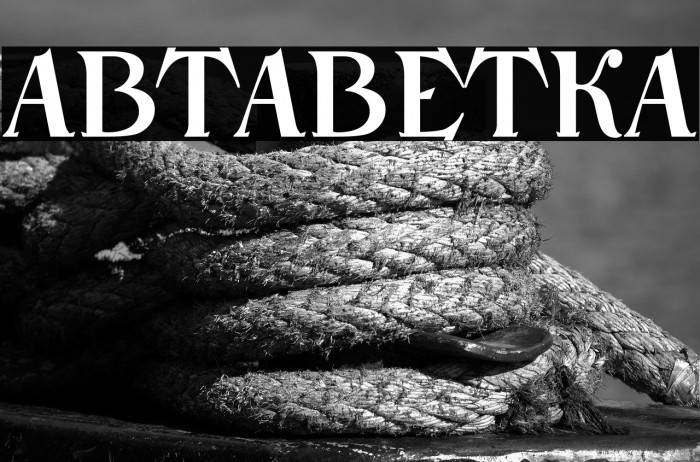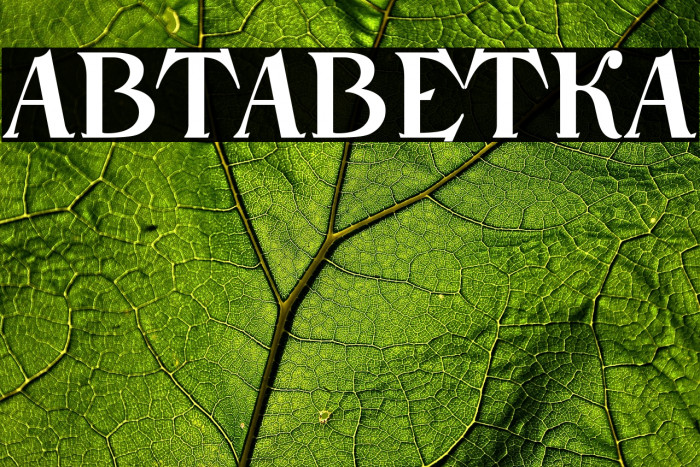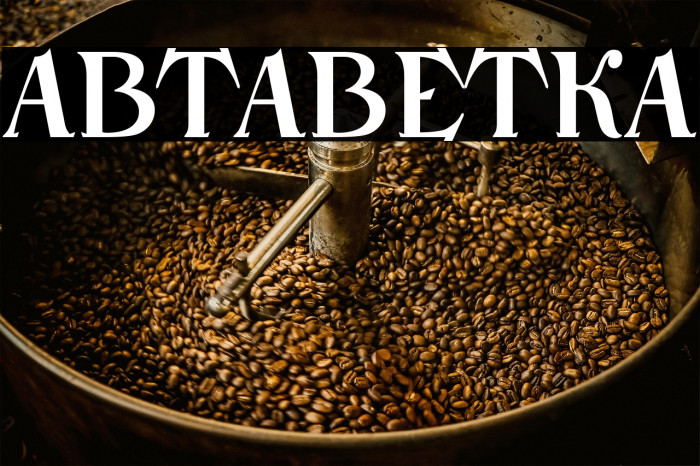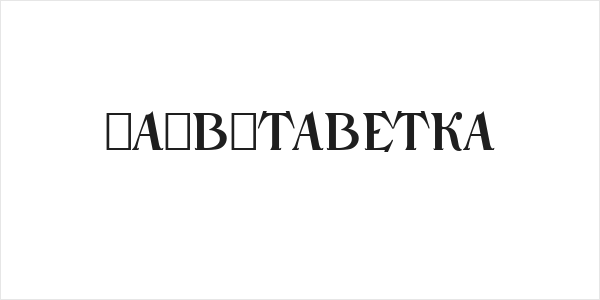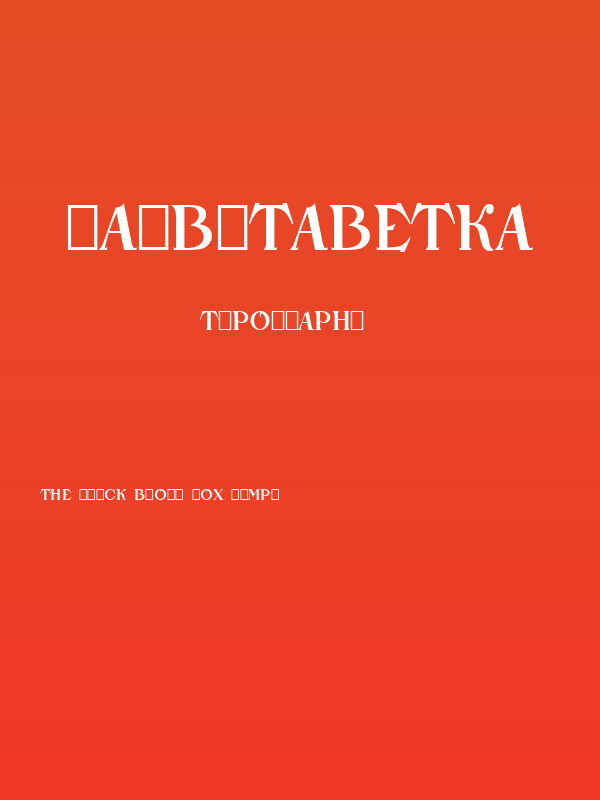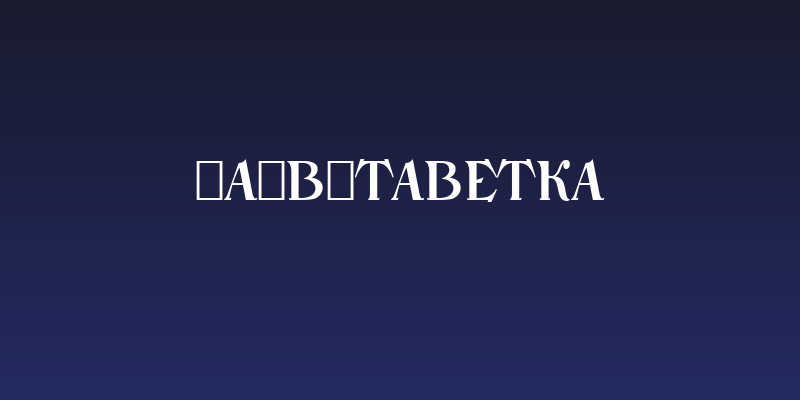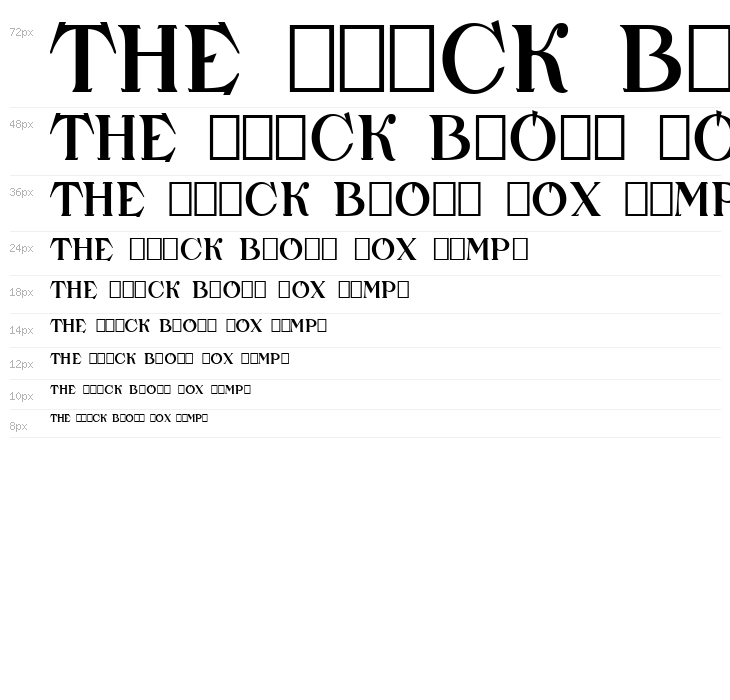
NarbutAbetka Font
NarbutAbetka Description
This font features a distinct and bold style with sharp, angular serifs and a strong presence. The uppercase letters exhibit a traditional yet modern flair, with a slight tilt that adds dynamism. The strokes are thick and consistent, providing a high contrast that enhances readability. The overall design is reminiscent of classic serif fonts but with a contemporary twist, making it suitable for impactful headlines and titles. The characters are well-spaced, allowing for clear legibility even at smaller sizes. This font's unique style makes it ideal for projects that require a touch of elegance and authority.